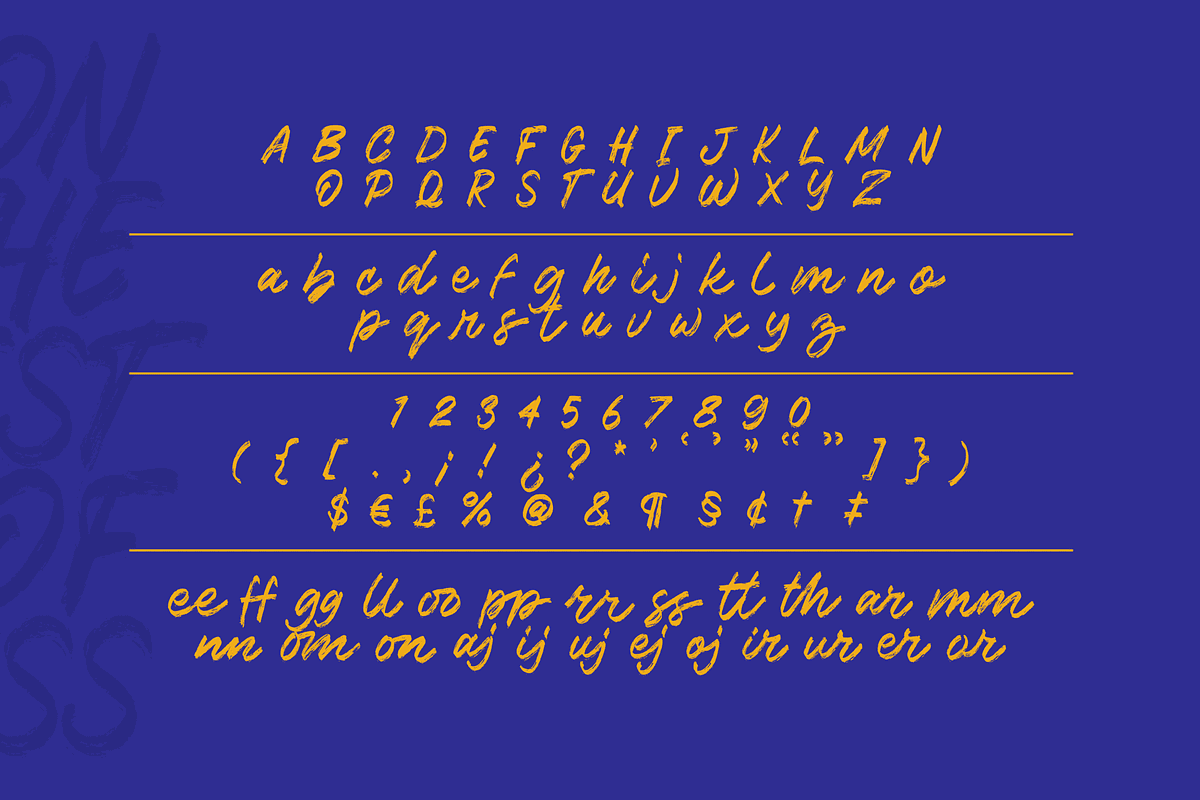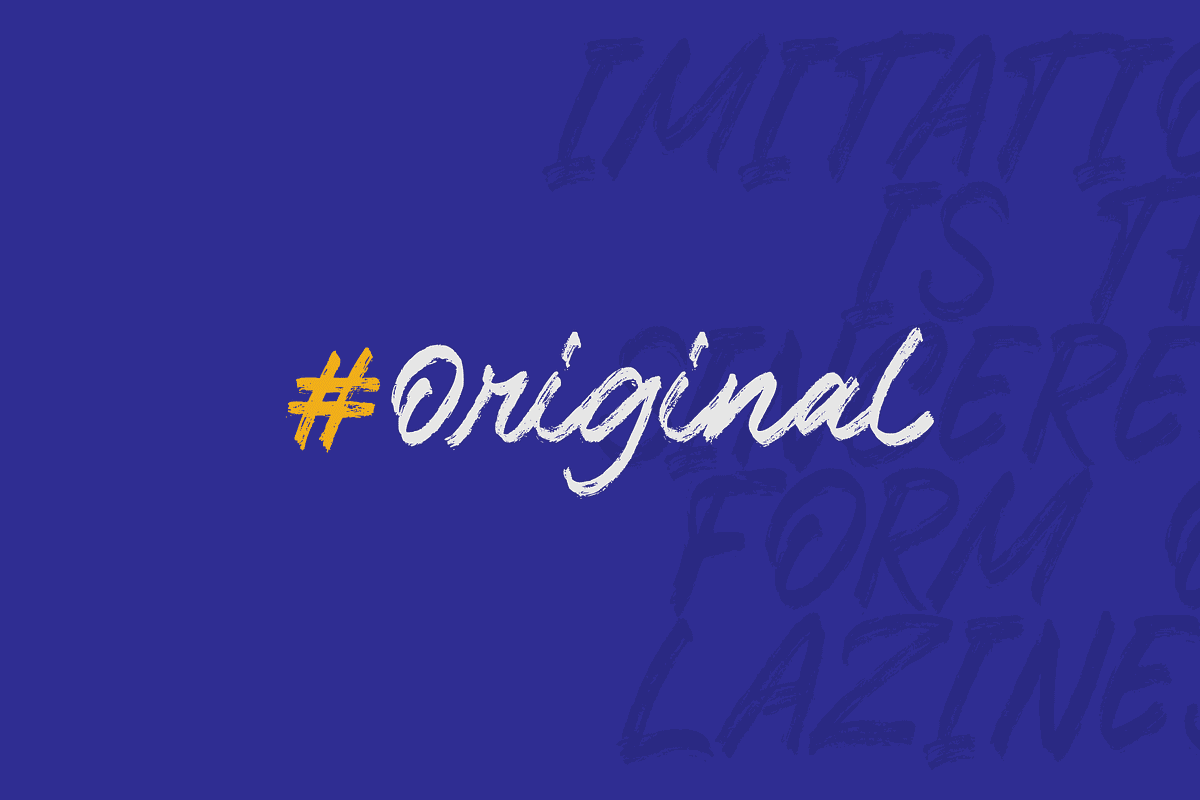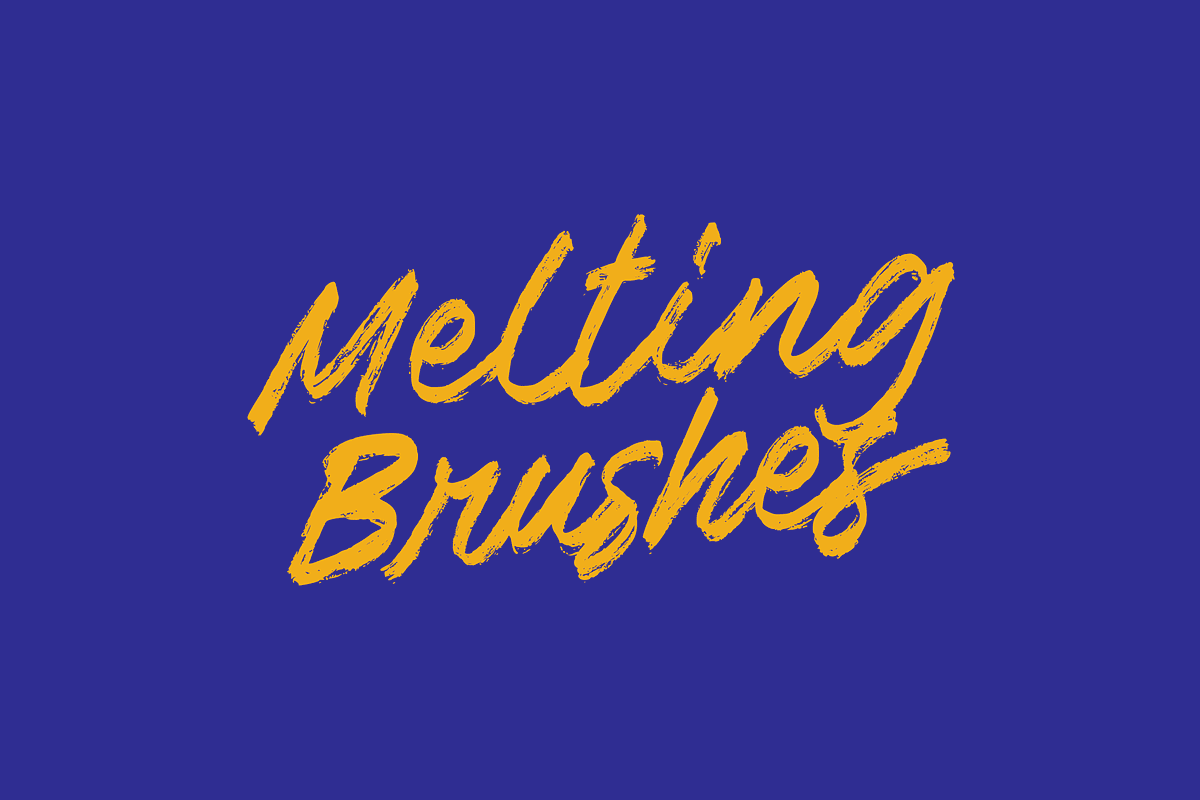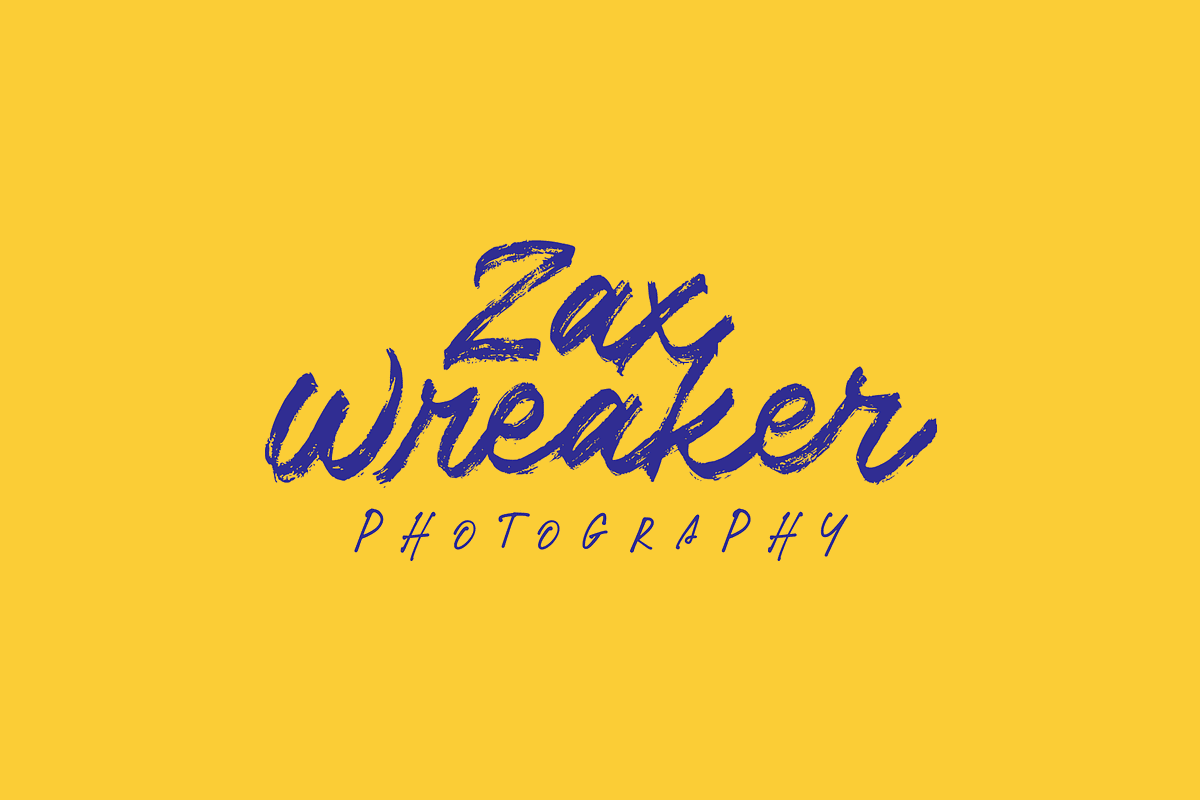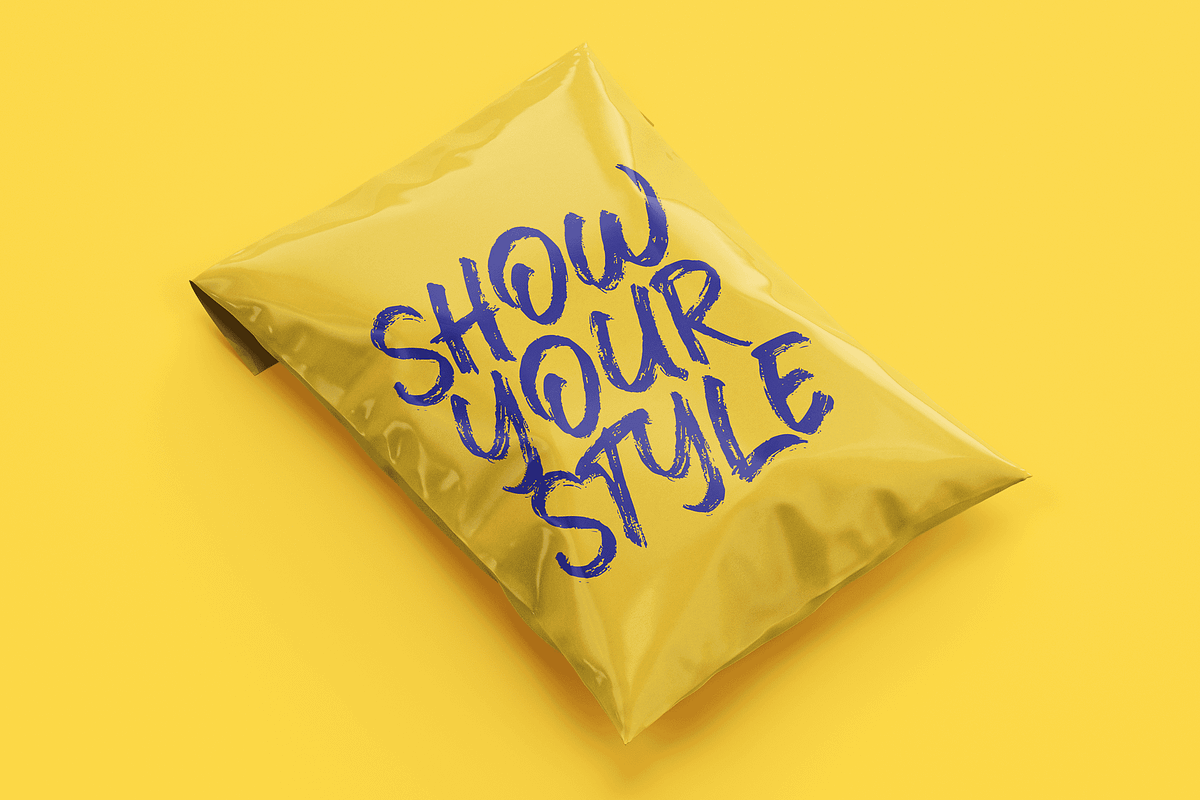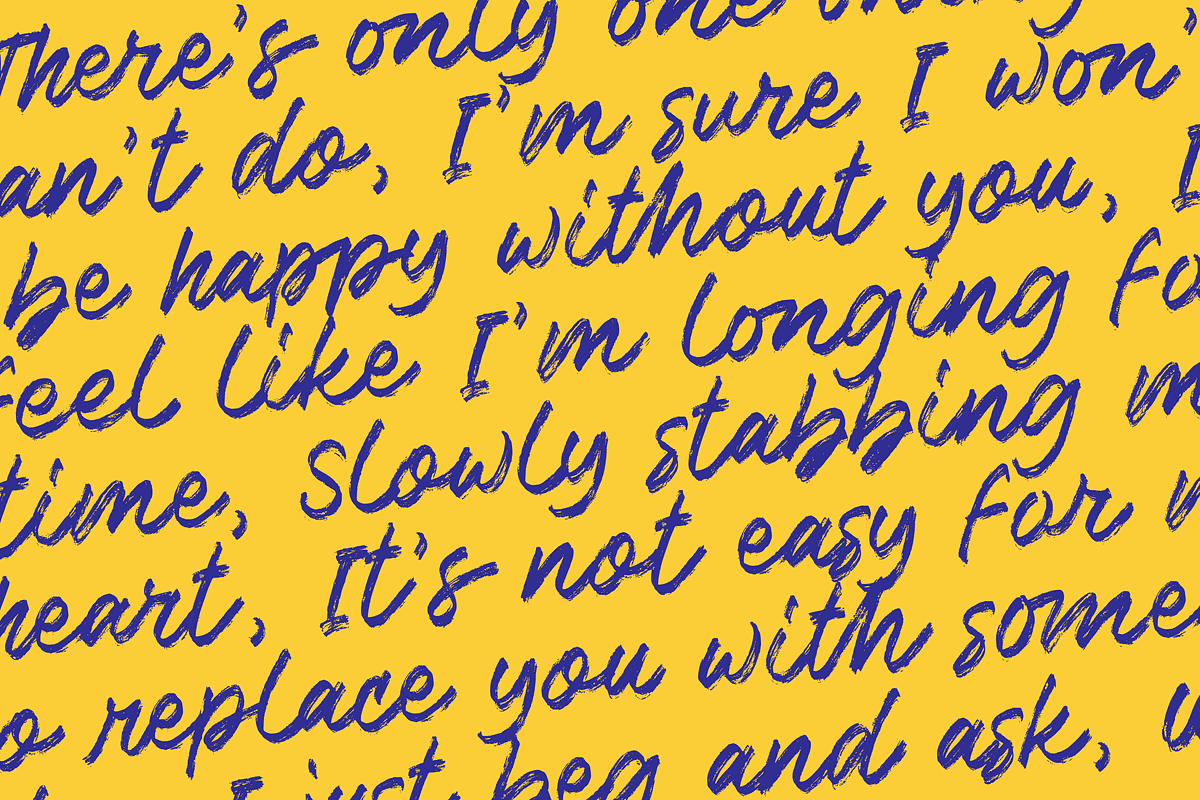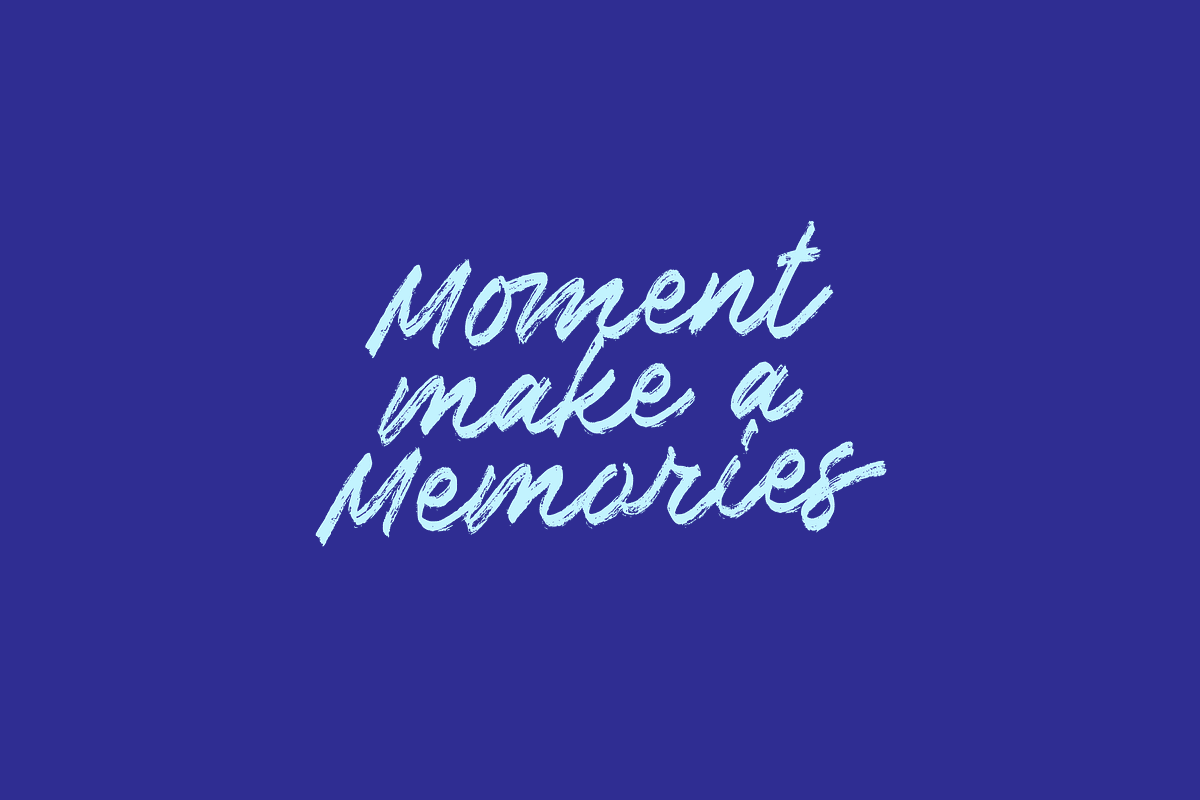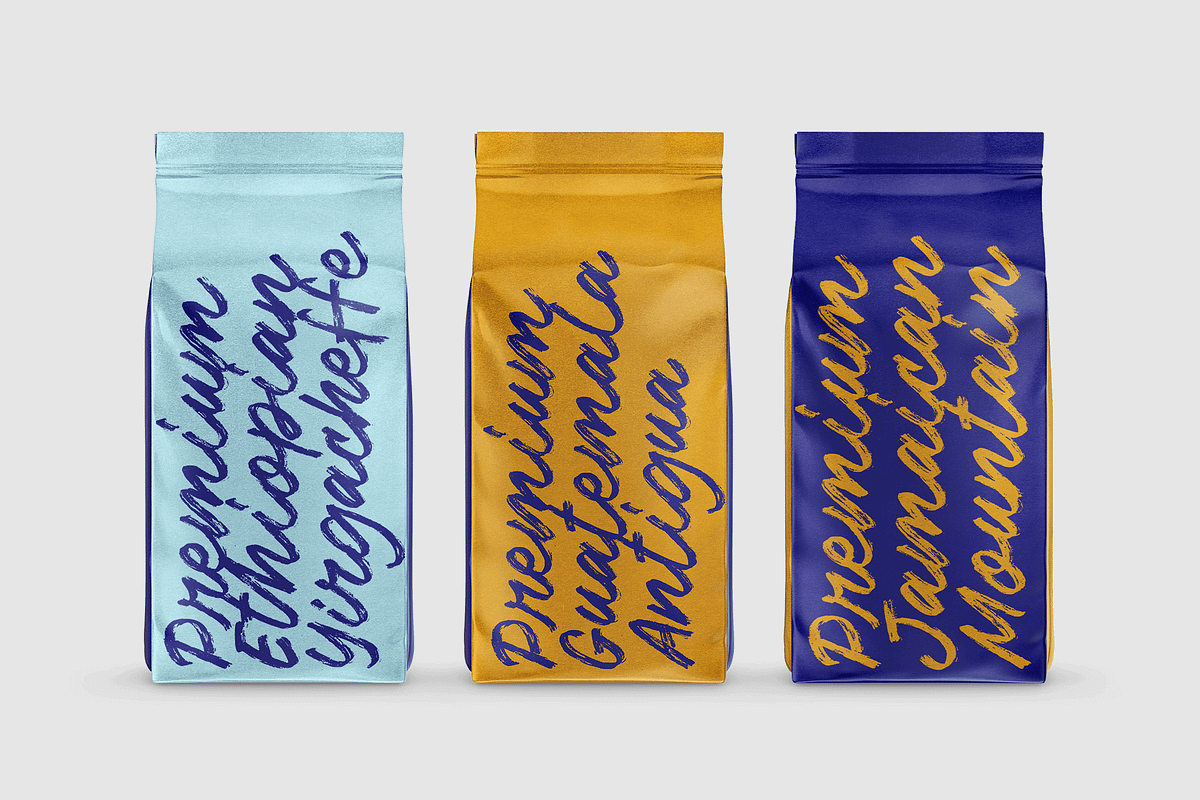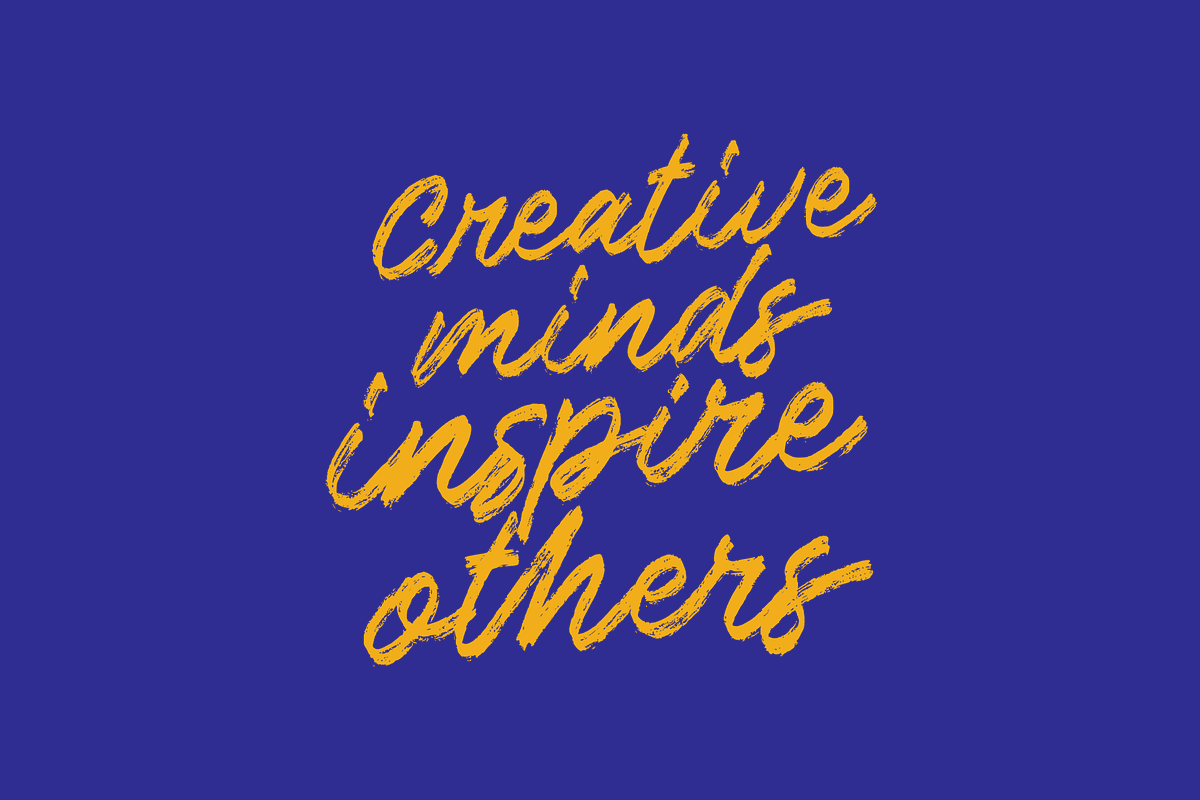
Melting Brushes
Melting Brushes fonts are a vibrant and dynamic choice for designers looking to add a touch of personality and flair to their work. These fonts mimic the irregularities and unique qualities of brush strokes, giving the text a handmade, artistic feel. They come in a variety of styles, from elegant scripts perfect for invitations and branding, to rugged and edgy designs that stand out in posters and social media graphics. With their textured details, these fonts can convey emotions and set a mood, making them a versatile tool in a designer’s arsenal. Whether you’re aiming for a casual, approachable look or something more sophisticated and polished, there’s a brush textured font to match the vibe you’re going for. Exploring the wide range of brush textured fonts available can inspire creativity and bring a distinctive edge to any design project.